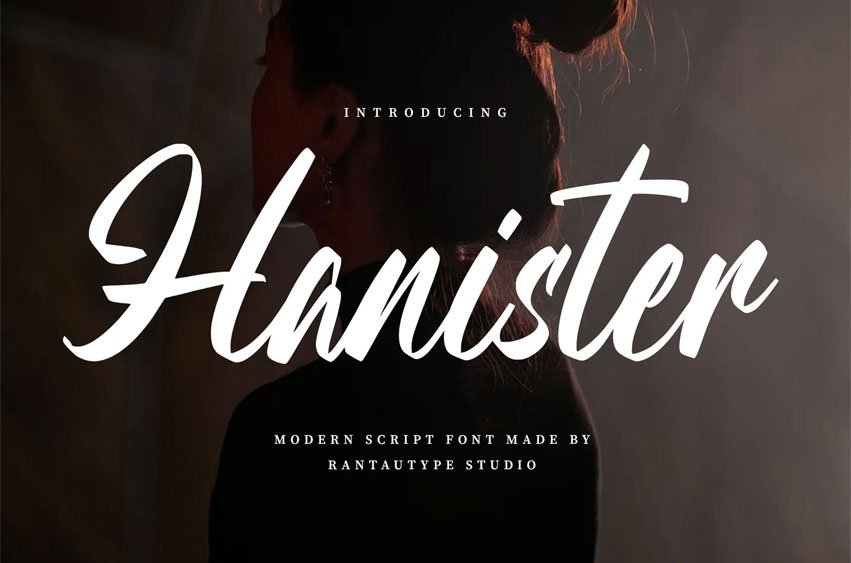
Hanister Font is a modern script font with a casual look. It is a perfect choice for a variety of creative endeavors. You can use Hanister for modern lifestyle designs, including logotypes, titles, covers, branding, invitations, wedding designs, displays, magazines, social media posts, advertisements, printed quotes, product packaging, corporate branding, product designs, labels, photography, watermarks, special events, and any other project that requires a contemporary touch.